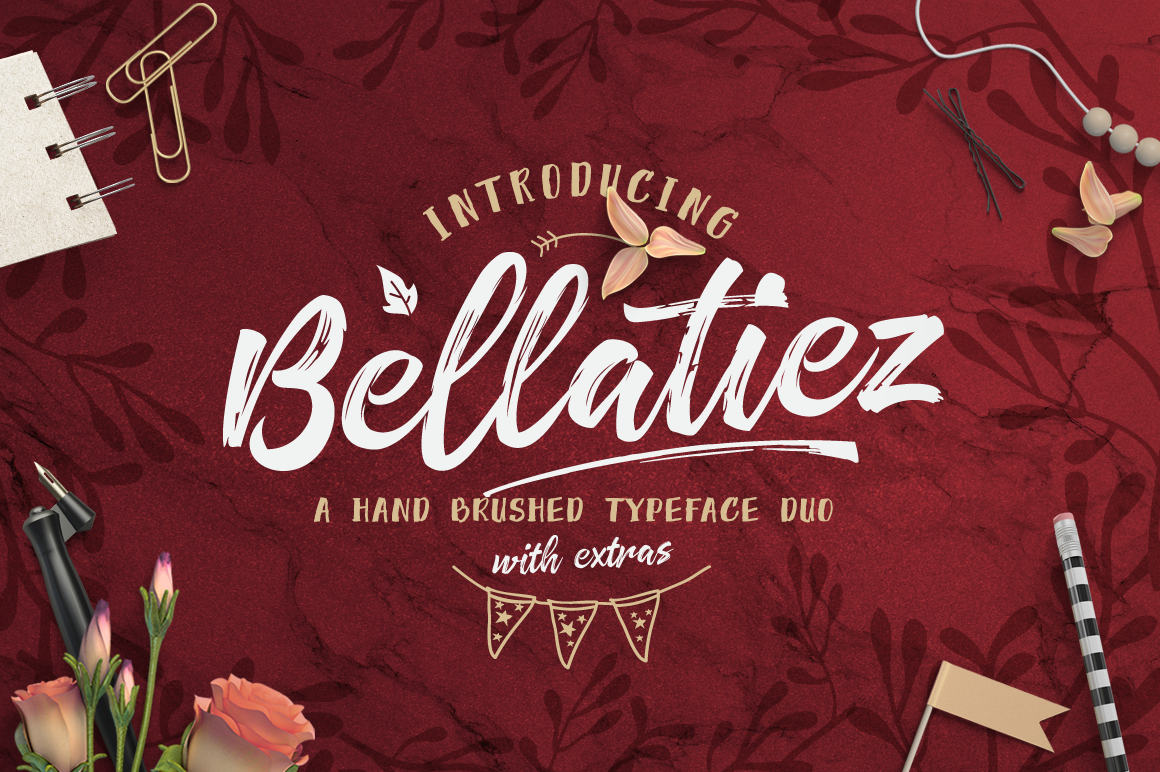
Bellatiez Font Duo + Bonus
Bellatiez Font Duo
A hand brushed and playful typeface duo with extras. Suitable for any design needs, modern invitation design, branding, stationery design, blog design, modern advertising design, invitation, Art Quote, Home decor, Book/Cover Title, Invitation, special events, birthday, custom mug, pillow, t-shirts, any brush lettering needs and more.
Bellatiez Reguler - a hand brused script font comes with upper and lowercase Standard Characters, Punctuation, Numerals. And other Glyphs variation of the OpenType features such as Stylistic Alternates and some Ligatures. Alternates are available for lowercase characters. Accessible in the Adobe Illustrator and adobe indesign Glyphs panel, or under Stylistic Alternates in the Adobe Photoshop OpenType menu.
Bellatiez Caps - a hand brused font containing uppercase only characters, punctuation, numerals. These 2 hand brushed fonts are perfectly combine with one another to create beautiful typography.
Extras - hand dooled illustrations and brushed swashes to add punch to your designs.